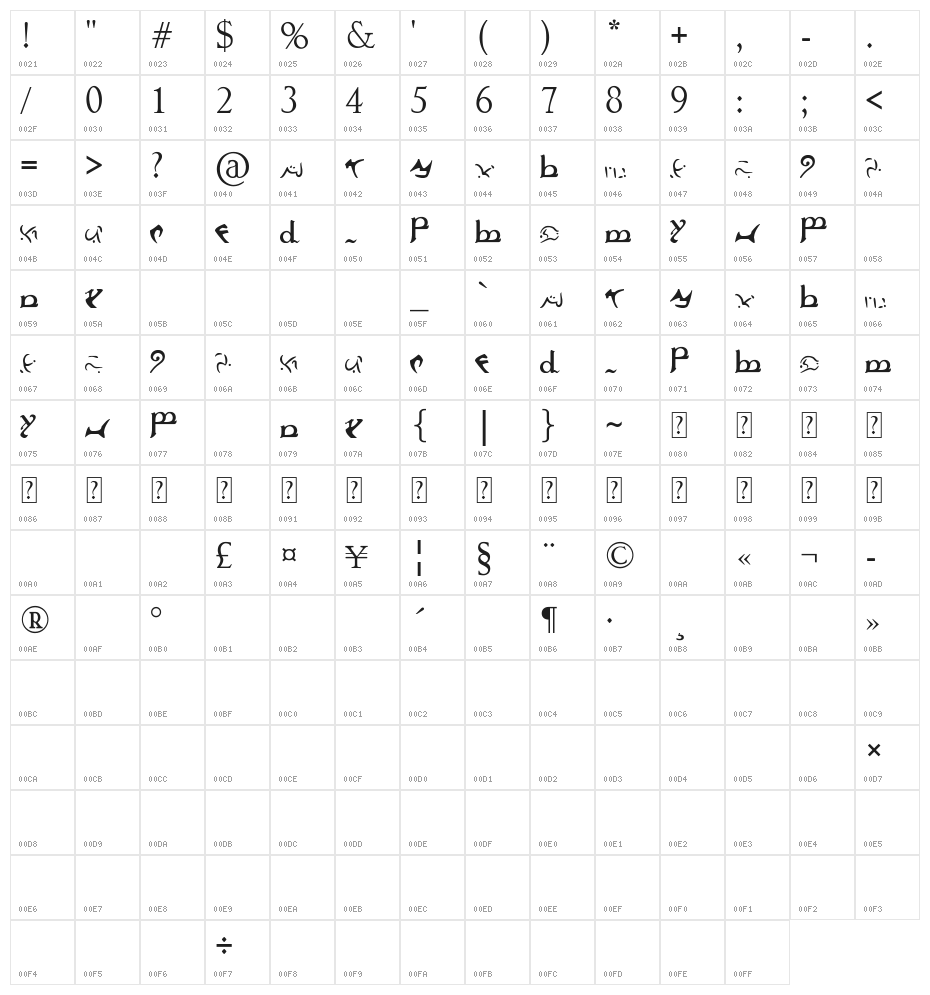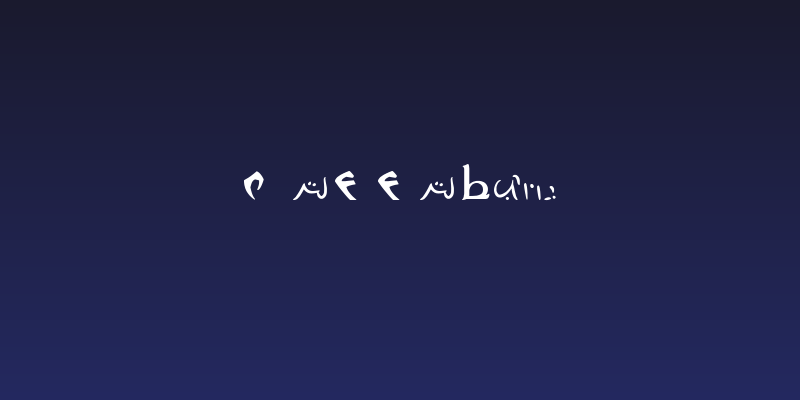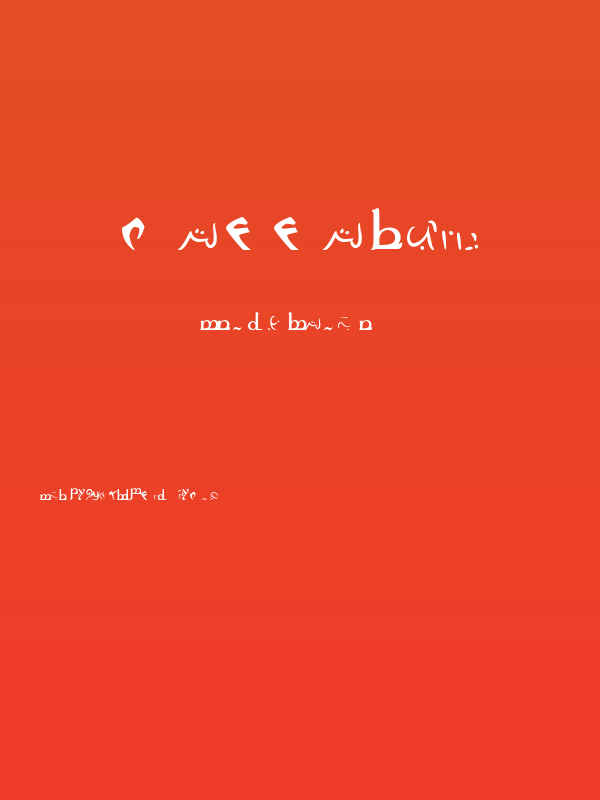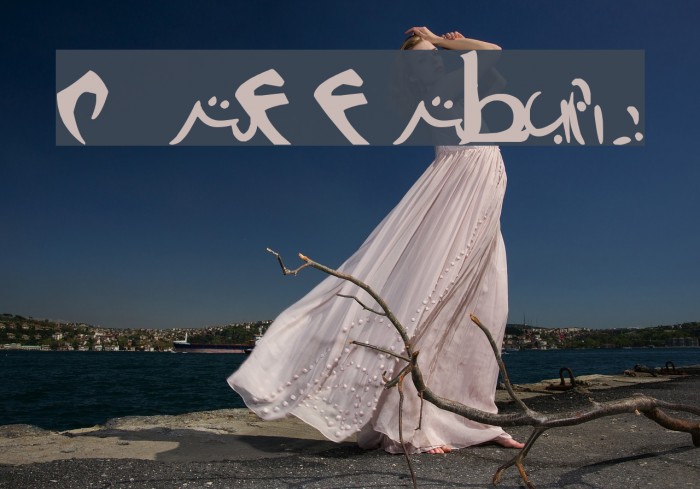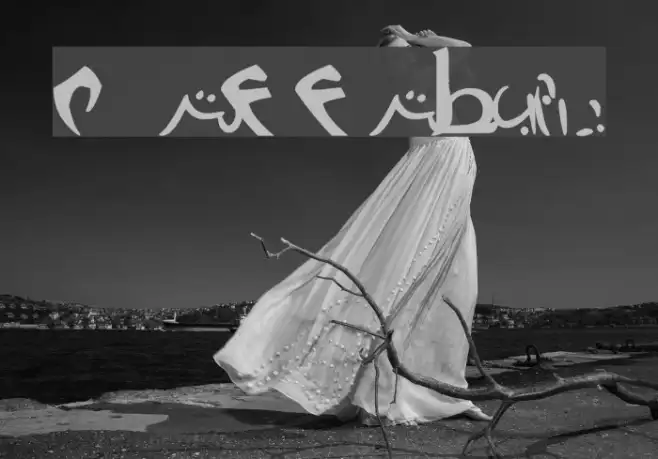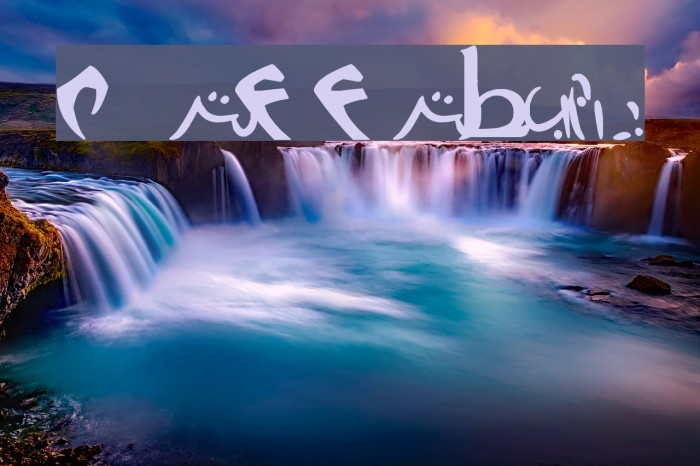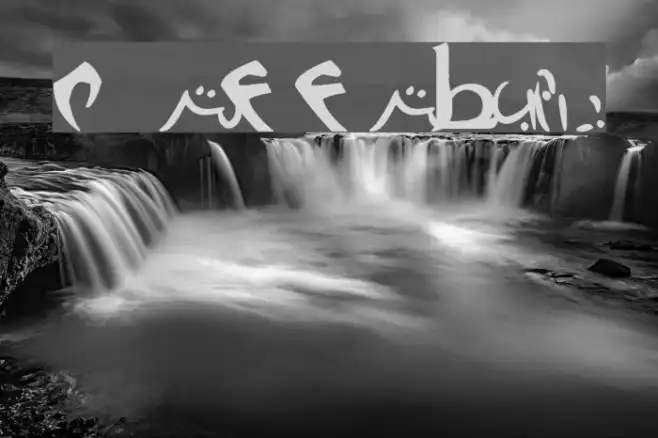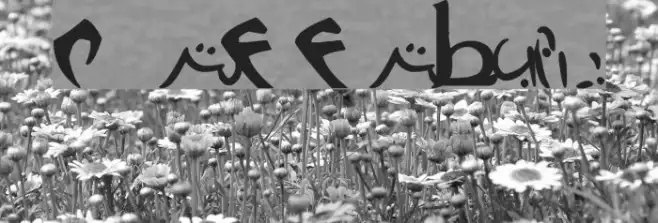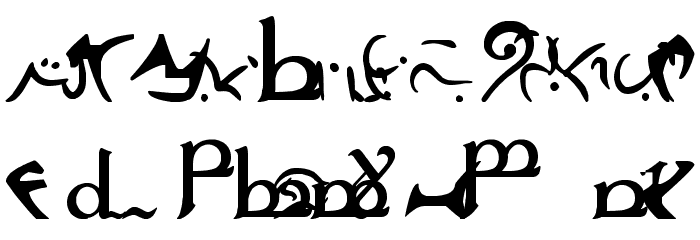
mannaelf Font
mannaelf Description
This font features a highly decorative and artistic style, characterized by its intricate and swirling letterforms. The characters exhibit a unique blend of curves and sharp angles, creating a visually striking appearance. The uppercase and lowercase letters maintain a consistent design theme, with elaborate embellishments that give the font a whimsical and almost mystical feel. The numbers and special characters follow the same ornate style, ensuring a cohesive look across all glyphs. This font is ideal for projects that require a touch of fantasy or elegance, such as invitations, posters, or branding for creative industries.